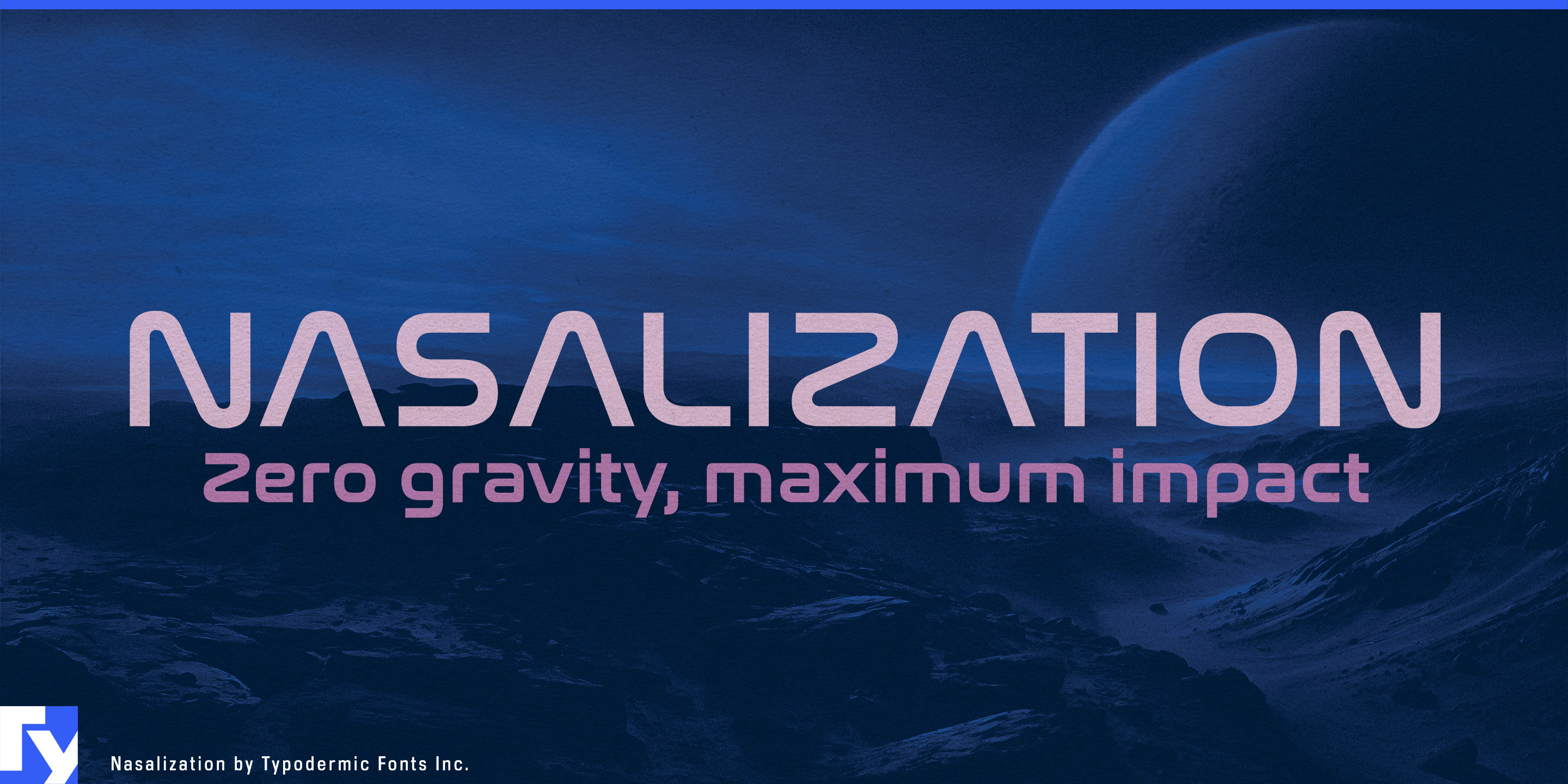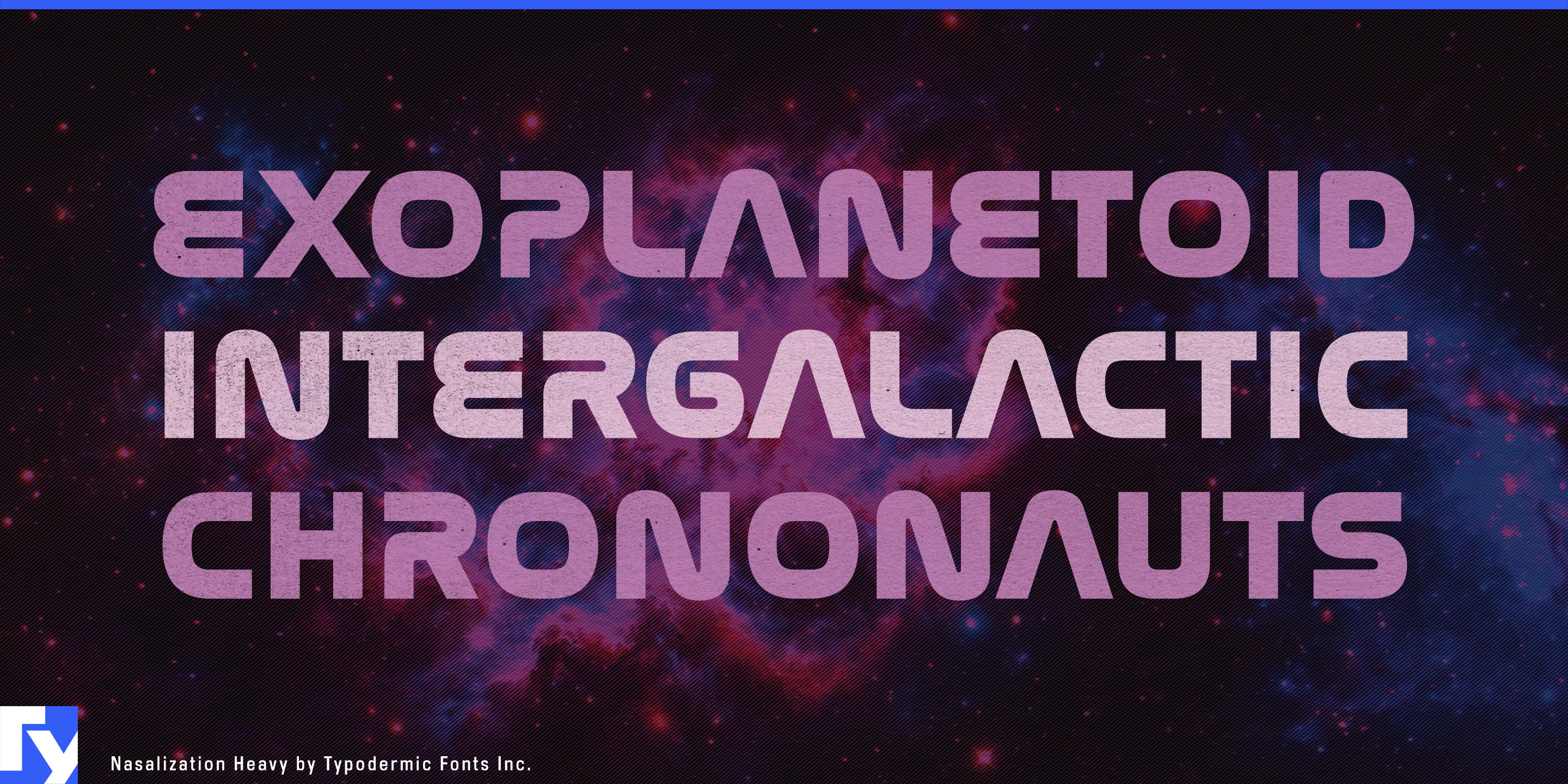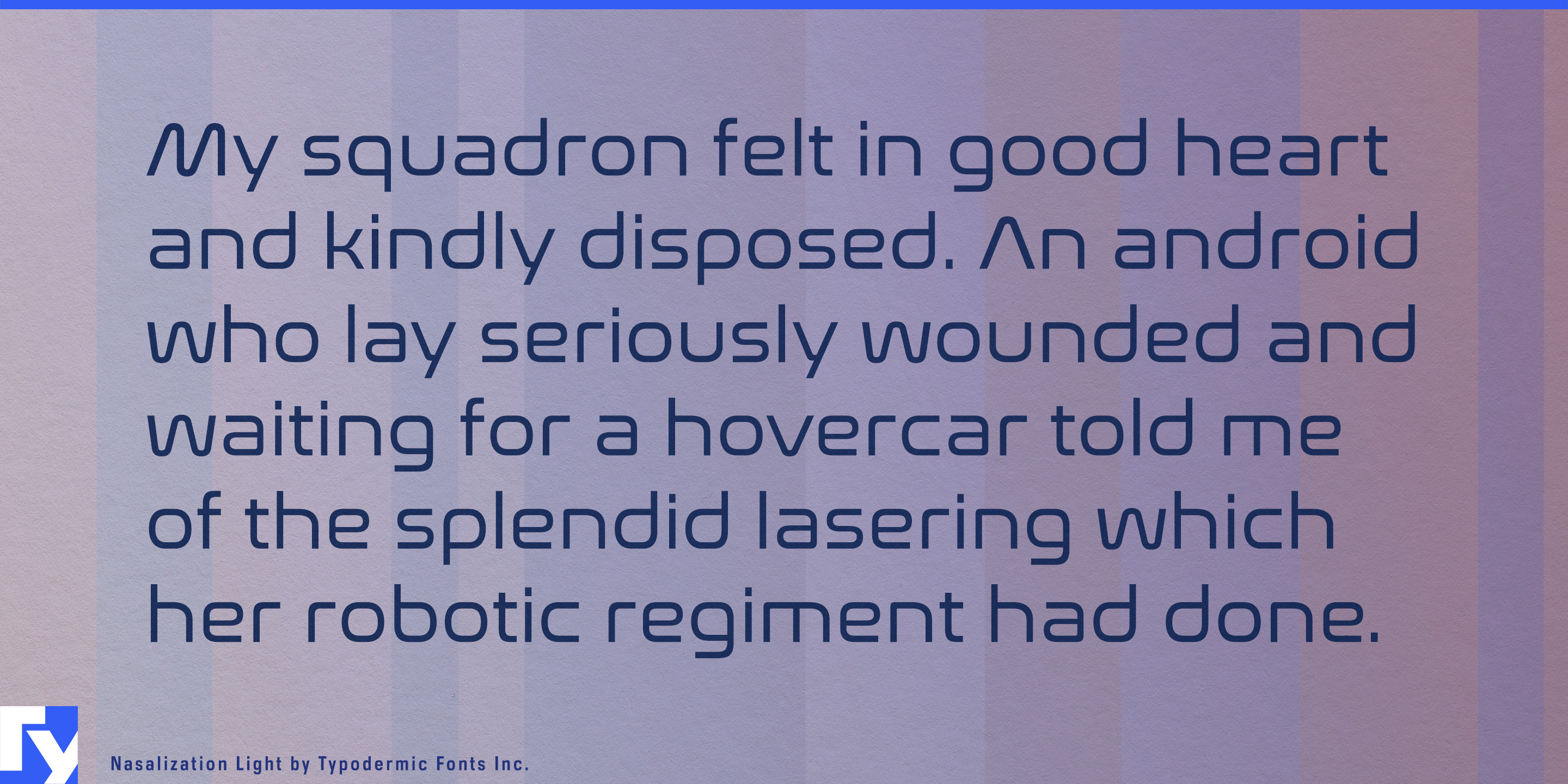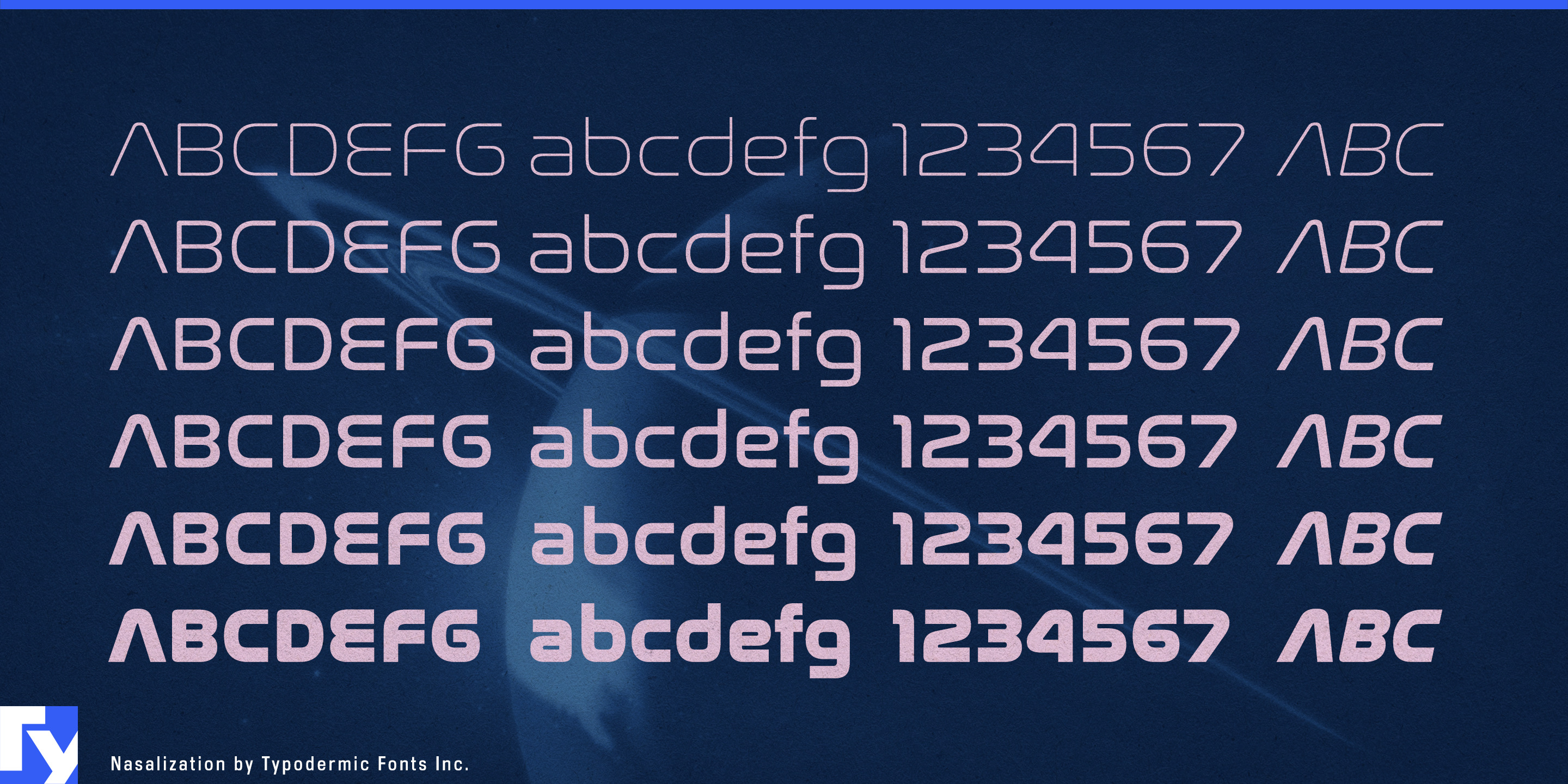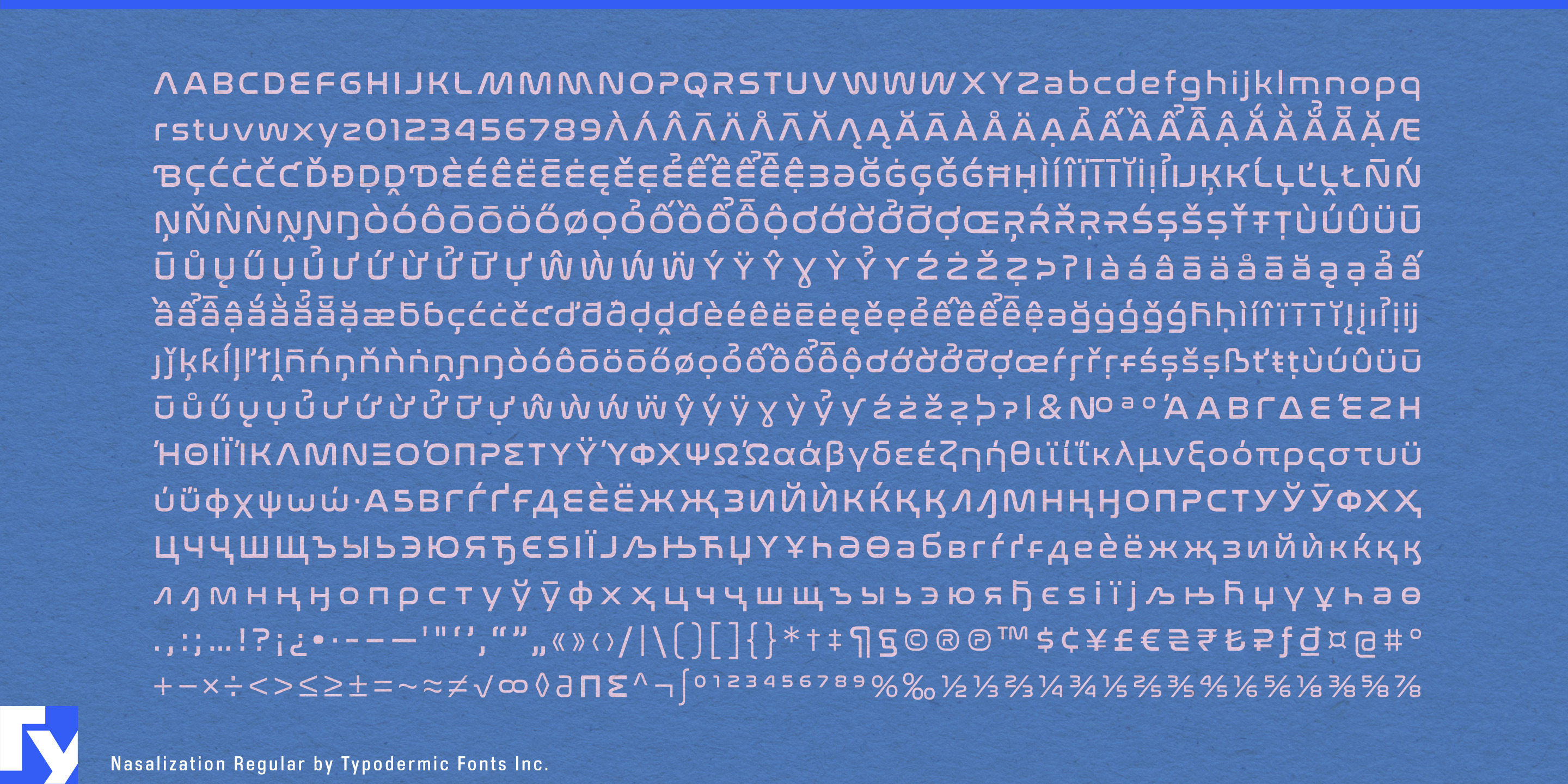
Nasalization
Putting a name on a high-performance object is harder than it looks. A bicycle frame, ski, helmet, racquet, paddle or spacecraft may be shaped around speed, precision and engineered materials, but its model name still has to look as though it belongs there. An ordinary geometric sans can feel like an afterthought; excessively futuristic lettering can turn serious equipment into a movie prop. Nasalization occupies the useful territory between those extremes.
Its broad, low-contrast geometry gives product names and model designations a distinctly engineered appearance while keeping the letterforms recognizable. The expanded proportions work especially well across long physical surfaces: bicycle down tubes, skis and snowboards, fitness machines, protective equipment and other sporting goods. Heavier weights can turn a short model name into a major part of the product graphics, while lighter weights handle series names, specifications and secondary markings within the same visual system.
That affinity with engineered objects has a genuine source. Nasalization began in 1997 as a modular all-caps design inspired by the geometry of NASA’s 1975 “worm” logo, extending the logic of its four letters into a complete alphabet. The family later grew to include lowercase, six weights with italics, Greek and Cyrillic support, contextual forms for M and W, and alternatives such as a cross-barred A. Its connection with spaceflight eventually came full circle through use associated with NASA’s Perseverance Mars mission.
Aerospace, satellite technology, space robotics and scientific equipment therefore feel as natural to Nasalization as performance sports. It can carry spacecraft names, launch-system identities, equipment markings, exhibition graphics and large technical headings without resorting to fractured or gimmicky sci-fi forms. Planetariums, astronomy exhibitions, science centers and model-rocket products can draw on the same visual language. Across all of these uses, Nasalization is particularly good at one job: making the name of an engineered thing look like part of the engineering.
- 1997
- Geometric, Modular, Low contrast
- Width
- Expanded
- Mixed case
- Latin, Greek, Cyrillic
- Dual purpose
- Features
- Alternates